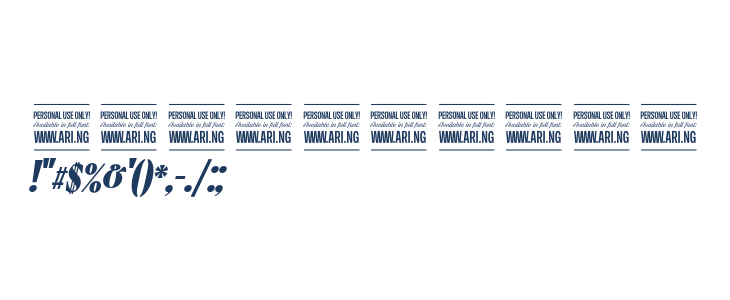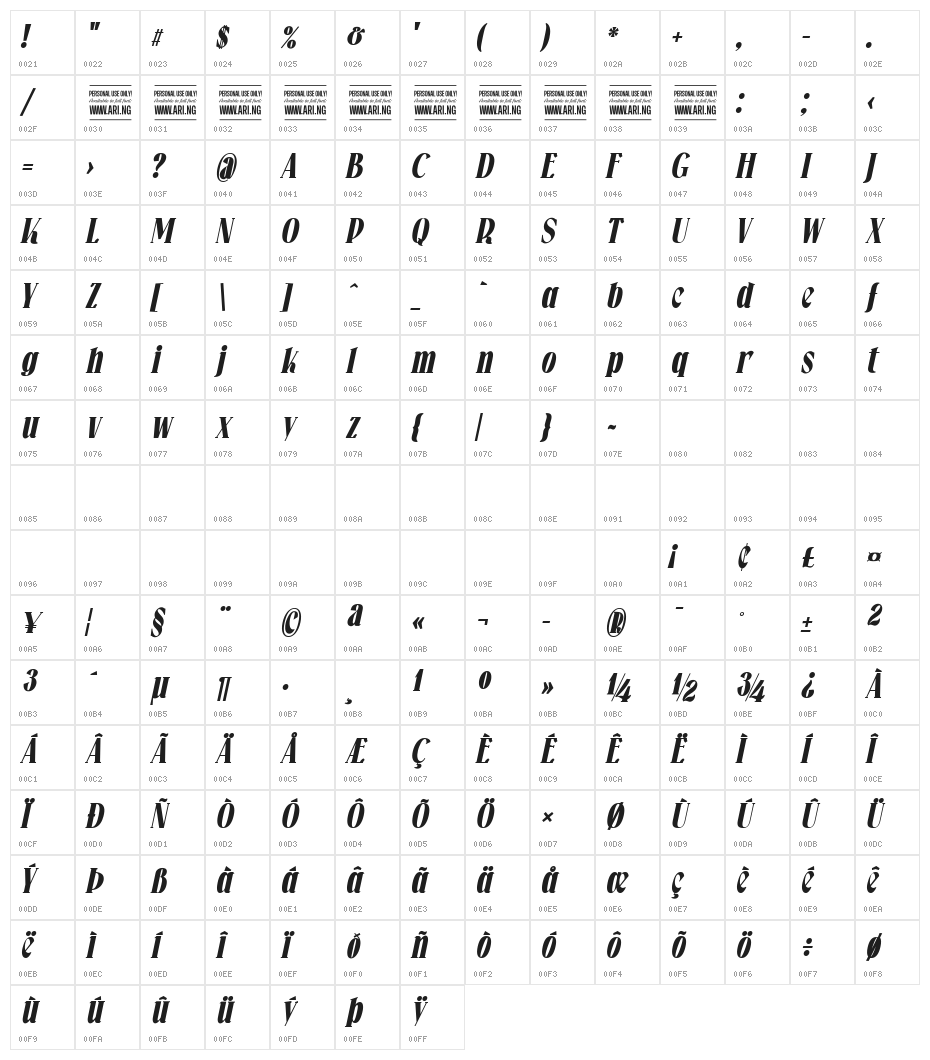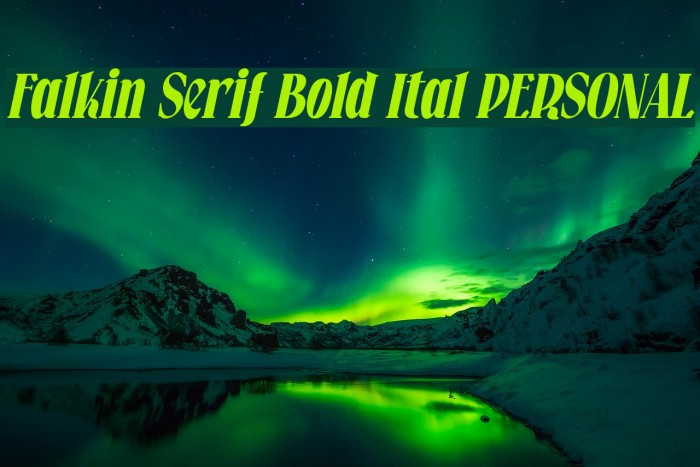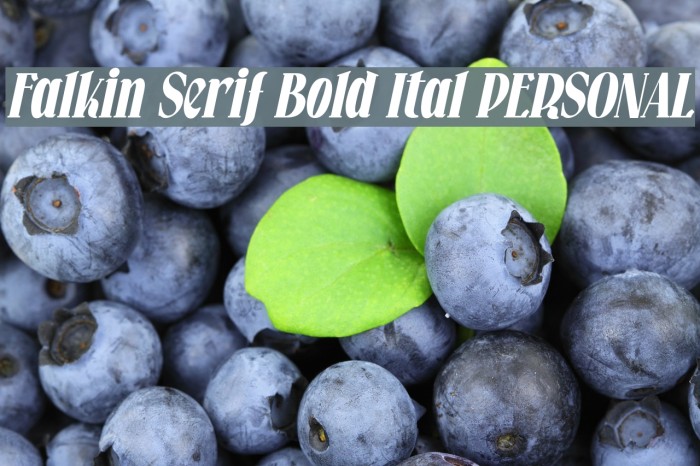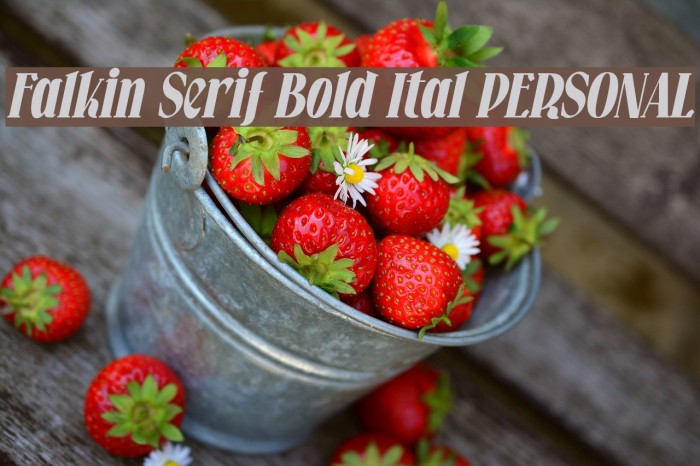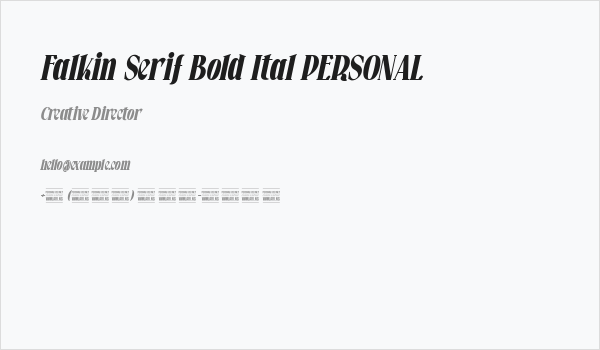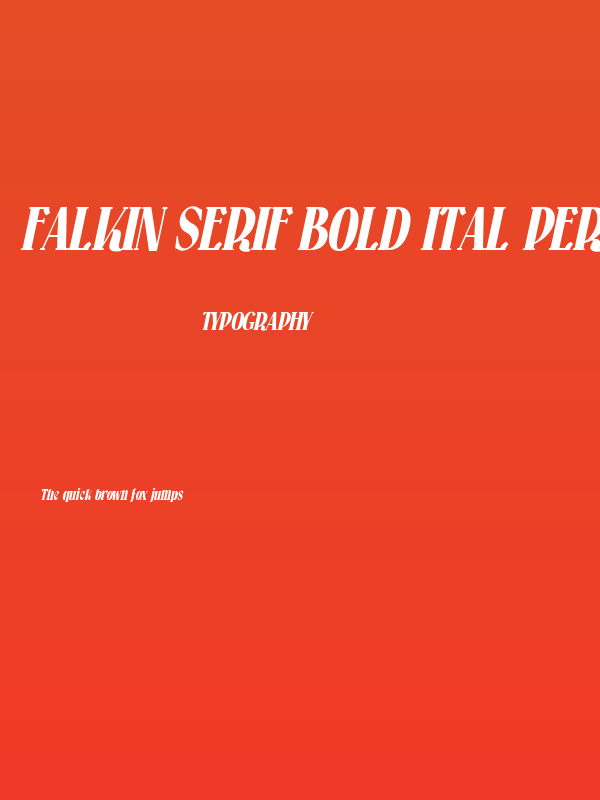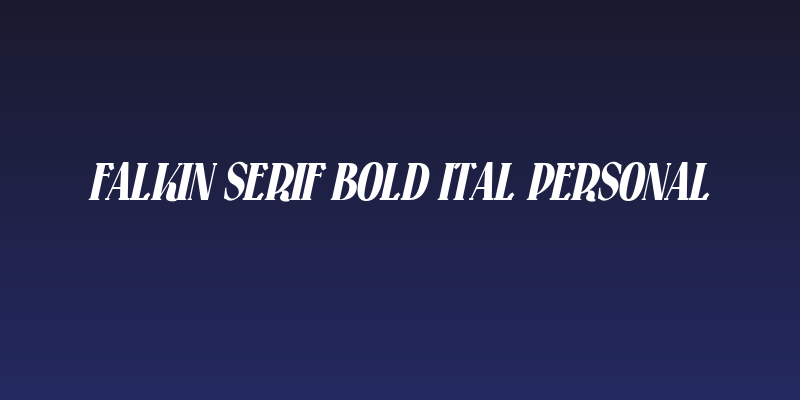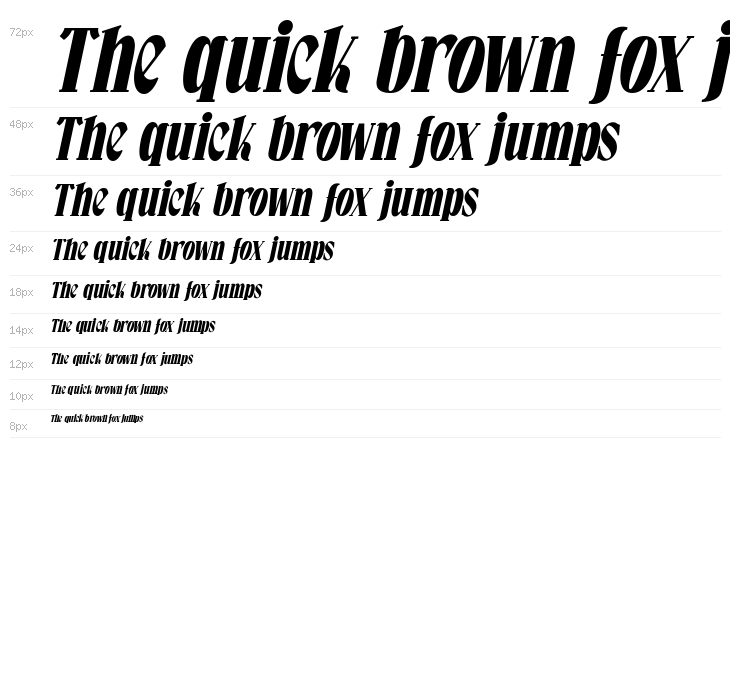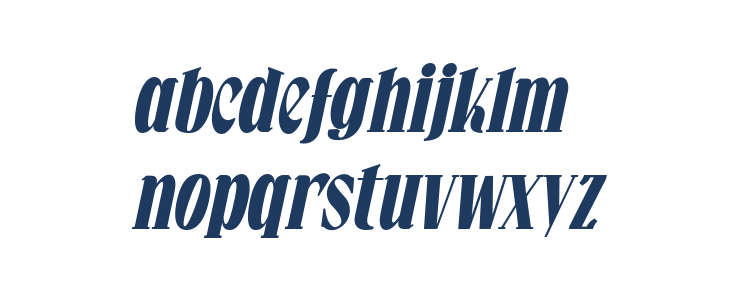
Falkin Serif Bold Ital PERSONAL Font
Falkin Serif Bold Ital PERSONAL Description
This font features a bold and italicized serif style, characterized by its dramatic and elegant strokes. The uppercase letters are tall and commanding, with a slight slant that adds a dynamic feel. The lowercase letters maintain a consistent style, offering a harmonious blend with the uppercase. The numbers and special characters are designed with the same boldness and slant, ensuring a cohesive look across all elements. This font's strong presence makes it ideal for impactful designs.
Proposed ProjectsIdeal for branding, headlines, posters, and editorial design where a bold statement is needed.